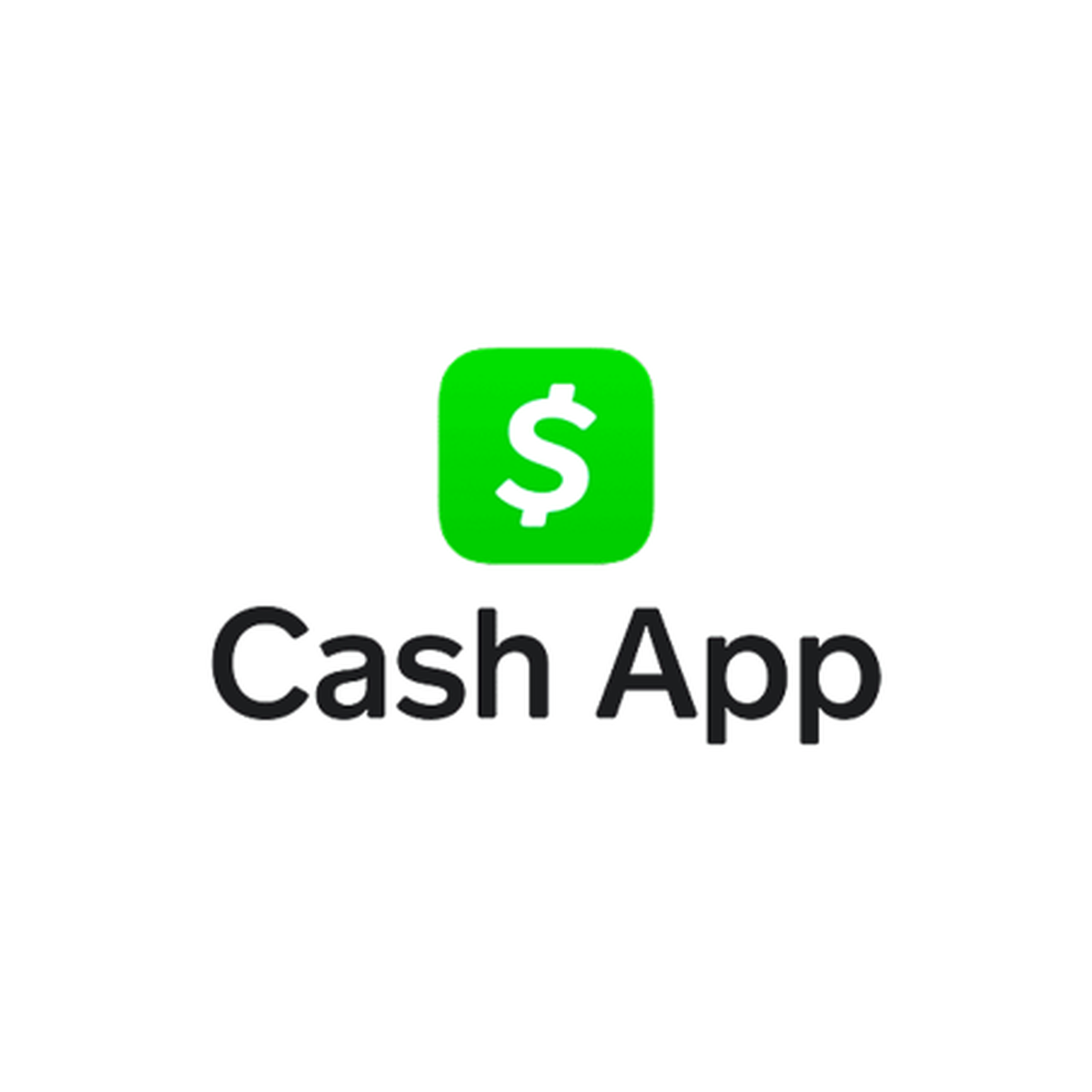
About CashApp
Cash App is the mobile peer-to-peer payments service launched by Block, Inc. (formerly Square) in 2013, used by tens of millions to send money, buy stocks, and hold bitcoin. Its identity is built around a bold, friendly geometric sans and the dollar-sign motif, a look that reads as approachable and modern in a category dominated by buttoned-up banking design.
Cash App's visual system has leaned on wide, light geometric lettering across its app, marketing, debit-card design, and high-profile sponsorships. The brand later commissioned a custom typeface, Cash Market, but the wide-and-light geometric register that defined its earlier identity, drawn from Agrandir, is still the look most associated with the app. That airy, circular, expanded-sans feel is what this font recreates.
What font does CashApp use?
CashApp uses Agrandir, designed by the Pangram Foundry, the wide geometric sans used across Cash App's earlier brand identity (the app now uses a custom face, Cash Market). A commercial release from Pangram.
Where this style works
Wide, light geometric sans-serifs like Agrandir suit fintech and tech branding, app interfaces, modern editorial layouts, fashion-adjacent wordmarks, and any identity that wants to feel open, contemporary, and unintimidating. The expanded proportions and circular bowls give headlines a calm, premium presence, while the light weight keeps large display lockups from feeling heavy.
What fonts are similar to the Cash App font?
Comparable wide geometric sans-serifs include Agrandir, Sharp Grotesk Wide, Druk Wide, and Galano Grotesque. Free options in adjacent territory include Lexend and Sora via Google Fonts.